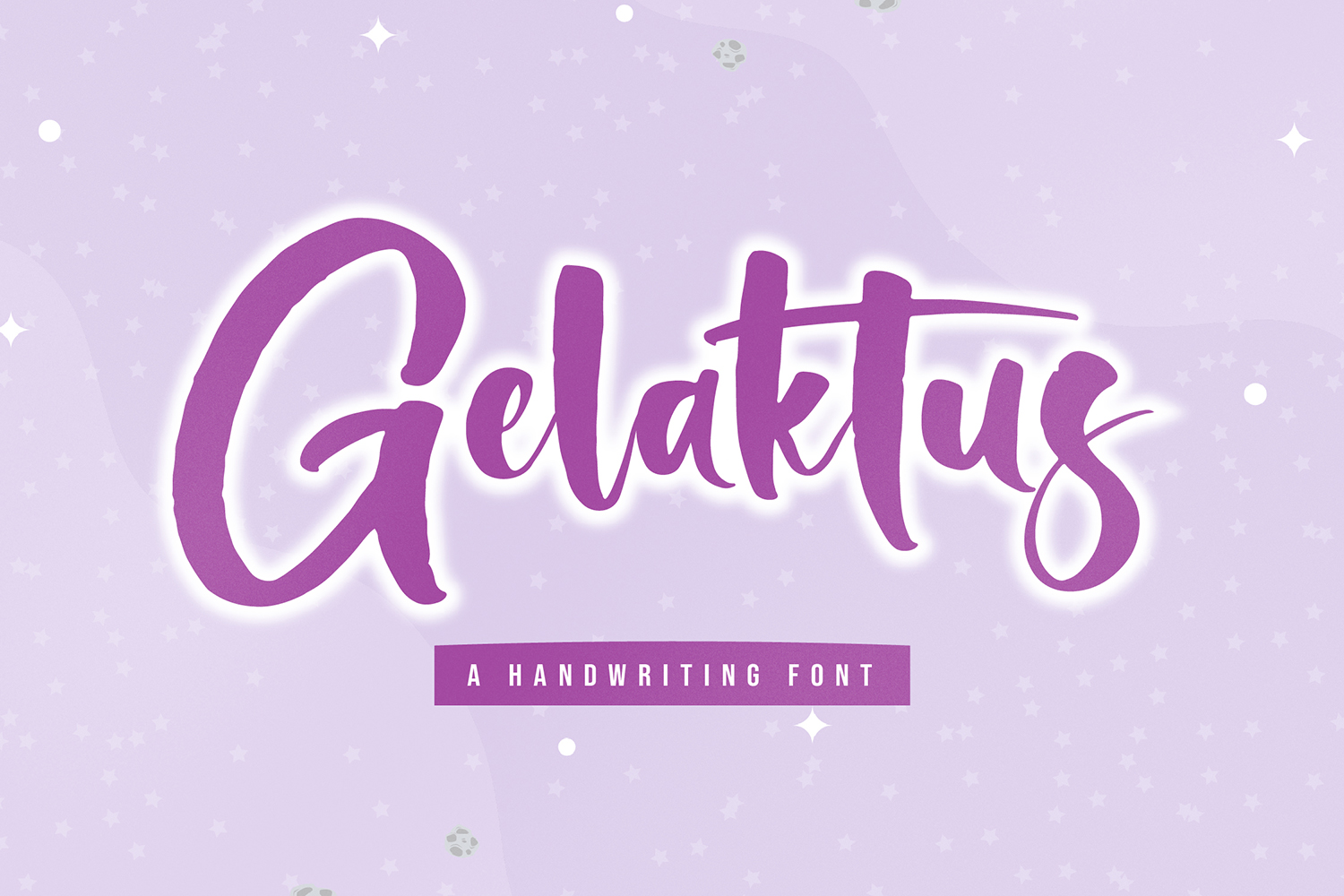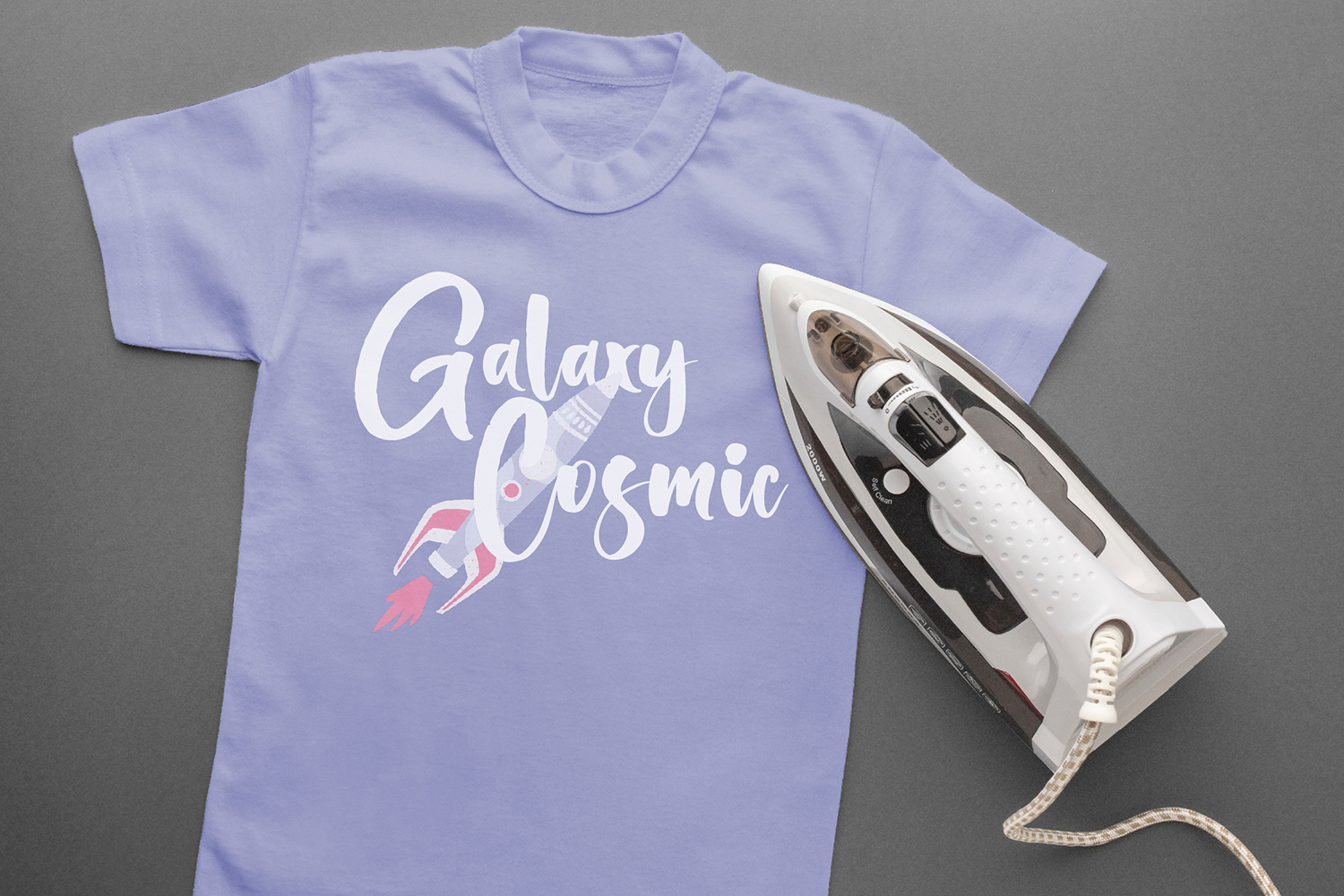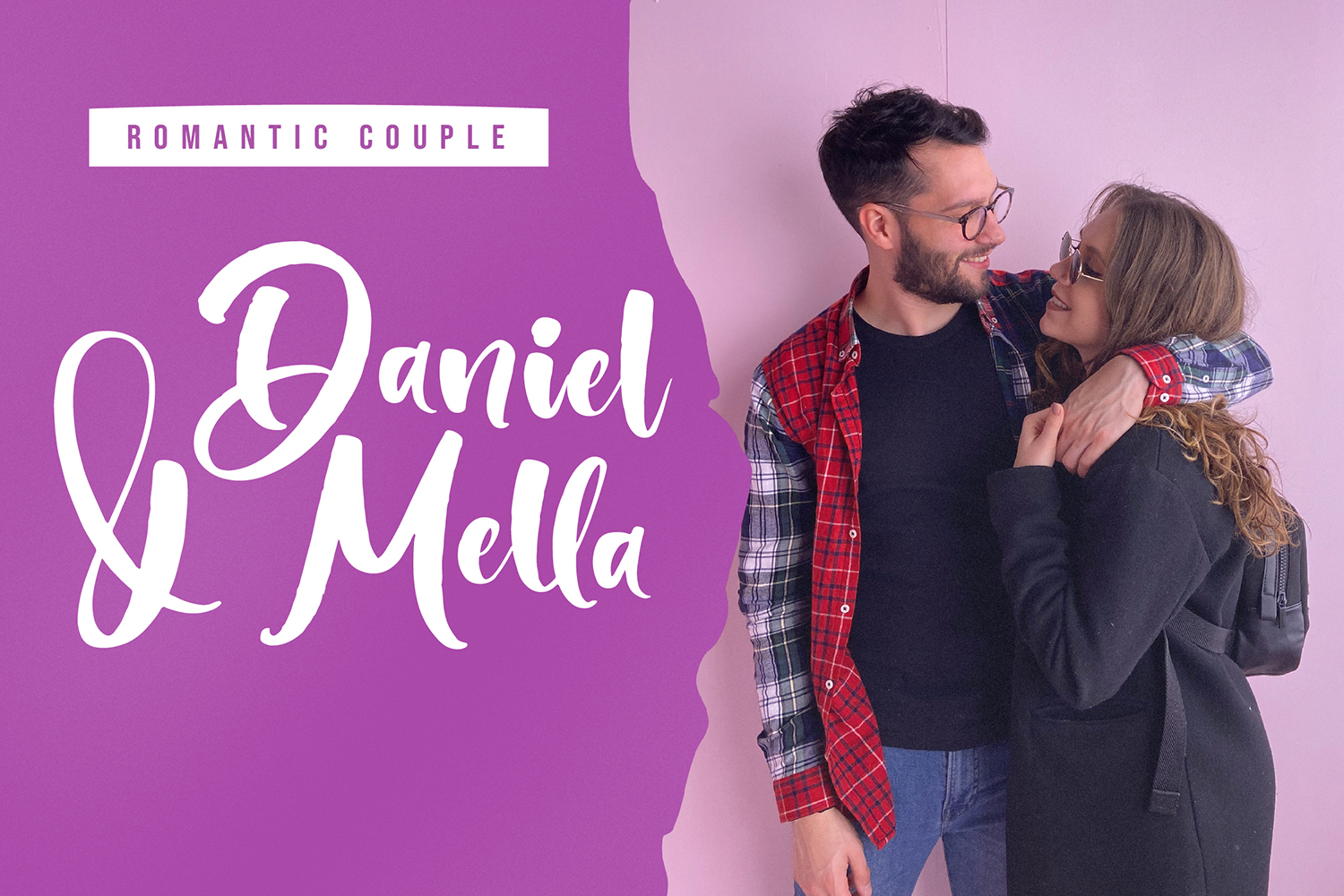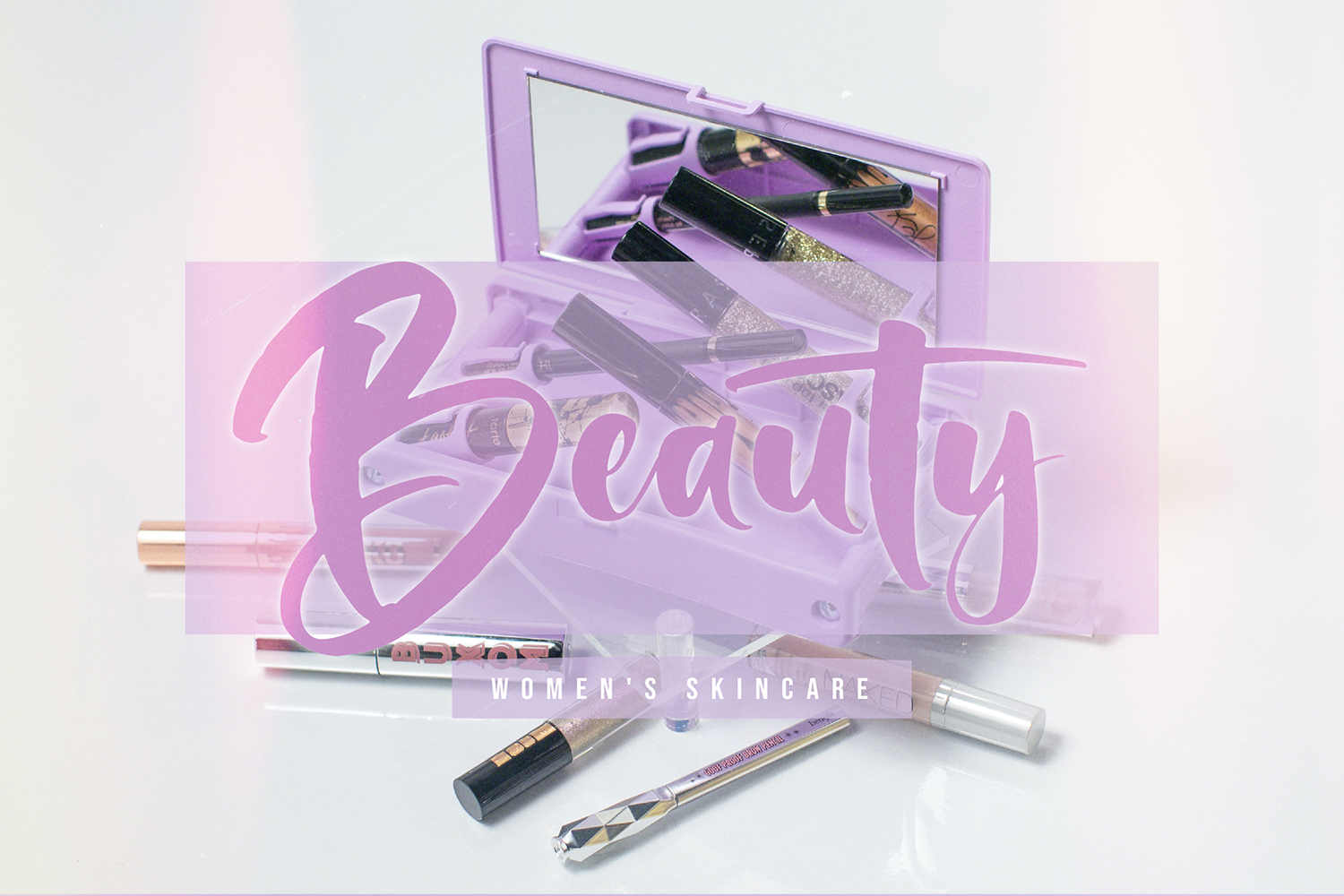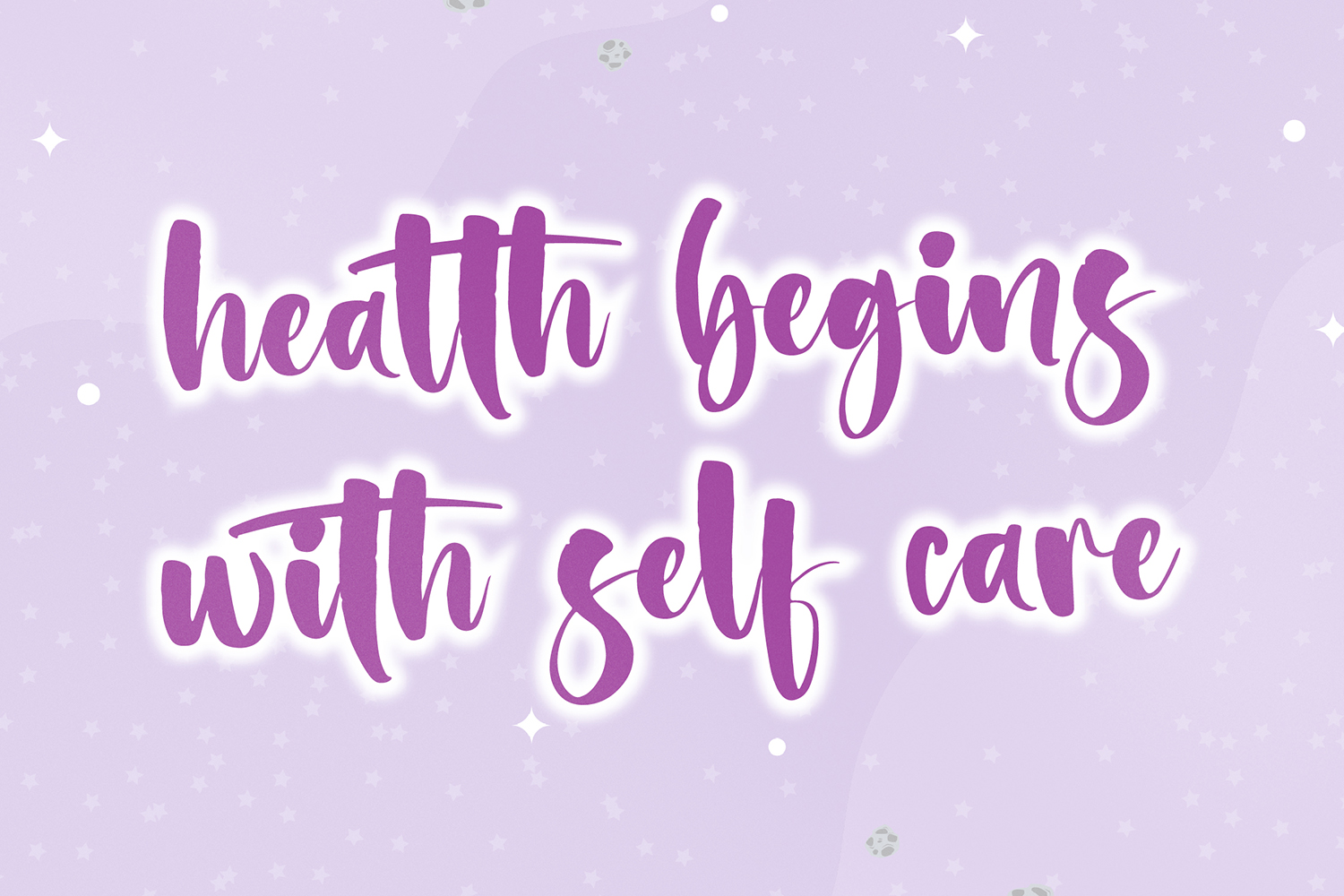
Gelaktus Free Font
Camilla Mosteland Free Font is a beautiful handwritten font that simulates detailed brush writing and is very suitable for creating various design projects that require a scripted font. These can be posters, invitations, cards, branding, flyer prints, etc. If you wish to access more features and use them for commercial work please buy the full version.
Author: Afterpaper Studio